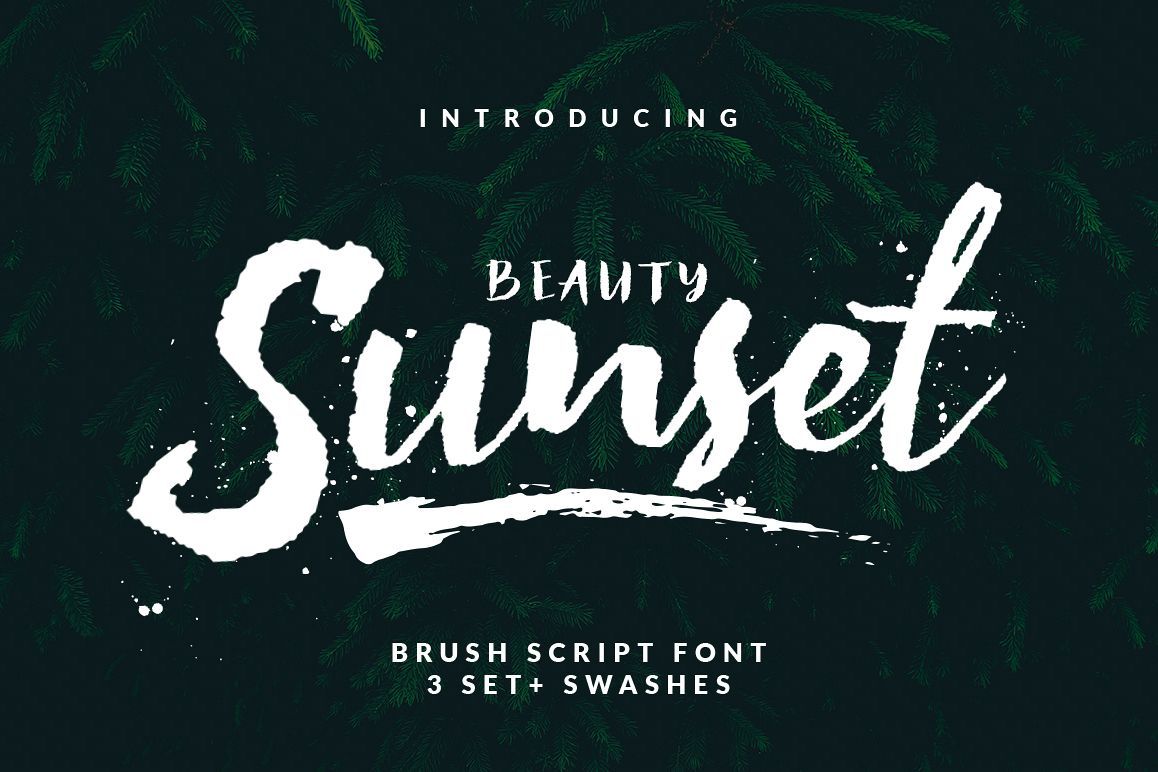
Created By Aulia Rahman
Beauty Sunset + Swashes
Beauty Sunset is a hand brushed typeface & a set of 3 hand-made marker pen fonts, designed to combine perfectly and allow you to create stunning hand-lettering quickly and easily. Also included is a set bonus swashes, ideal for giving your text that final touch of finesse!